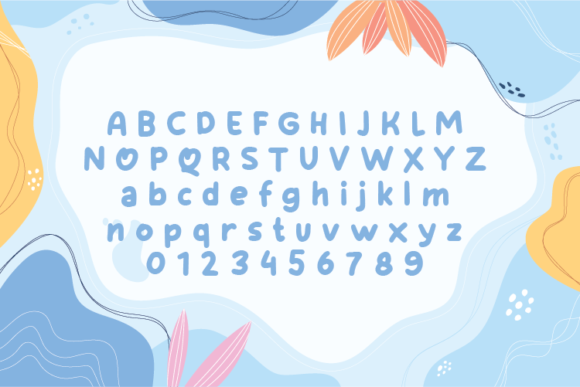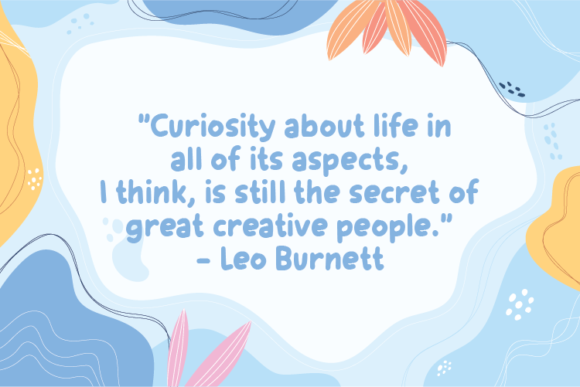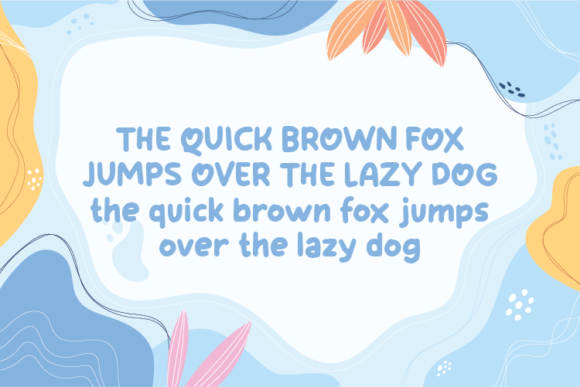
Introducing Gloria Spring Font: The Unique Handwritten Font for Creative Designs
Are you tired of using the same old fonts for your designs? Look no further than Gloria Spring Font, a natural handwritten font that is sure to add a touch of personality to your projects. What sets Gloria Spring apart from other fonts is its unique characteristic of not changing a single node in each character’s indentation, making it a truly one-of-a-kind font.
The Characteristics of Gloria Spring Font
Gloria Spring Font is a handwritten font that boasts a natural, effortless look. The font’s unique feature is that it doesn’t alter the indentation of each character, giving it a distinctive and interesting appearance. This characteristic makes Gloria Spring Font perfect for designs where you want to add a personal touch without looking too uniform or generic.
Uses of Gloria Spring Font
Gloria Spring Font is a versatile font that can be used for a variety of design projects. Here are some ideas to get you started:
• Quotes: Add a touch of elegance and personality to your quotes with Gloria Spring Font. The font’s unique indentation style makes it perfect for inspirational quotes, sayings, and phrases.
• Notes: Use Gloria Spring Font to add a personal touch to your notes, journals, and planners. The font’s handwritten style makes it perfect for writing down ideas, to-do lists, and reminders.
• T-Shirts and Apparel: Gloria Spring Font is a great choice for designing t-shirts, hoodies, and other apparel. The font’s unique style will make your designs stand out and add a touch of personality to your clothing.
• Product Design: Use Gloria Spring Font to add a personal touch to your product designs, such as packaging, labels, and branding materials. The font’s natural, handwritten style will help your products stand out and give them a unique feel.
Benefits of Using Gloria Spring Font
Gloria Spring Font offers several benefits for designers and crafters, including:
• Unique Style: Gloria Spring Font has a unique style that will set your designs apart from others. The font’s natural, handwritten look and distinctive indentation style make it a one-of-a-kind font.
• Versatility: Gloria Spring Font is a versatile font that can be used for a variety of design projects, from quotes and notes to t-shirts and product design.
Tips for Using Gloria Spring Font
Here are some tips for using Gloria Spring Font in your designs:
• Experiment with Sizes: Gloria Spring Font looks great in a variety of sizes, from small to large. Experiment with different sizes to find the one that works best for your design.
• Pair with Other Fonts: Gloria Spring Font pairs well with other fonts, especially sans-serif fonts. Experiment with different font combinations to find the one that works best for your design.
• Use for Headlines and Body Text: Gloria Spring Font is perfect for headlines and body text. Use it to add a personal touch to your designs and make them stand out.
Gloria Spring Font is a unique and versatile font that is perfect for designers and crafters looking to add a personal touch to their designs. With its natural, handwritten style and distinctive indentation style, Gloria Spring Font is sure to make your designs stand out. Whether you’re designing quotes, notes, t-shirts, or product designs, Gloria Spring Font is a great choice. So why not give it a try and see how it can elevate your designs?